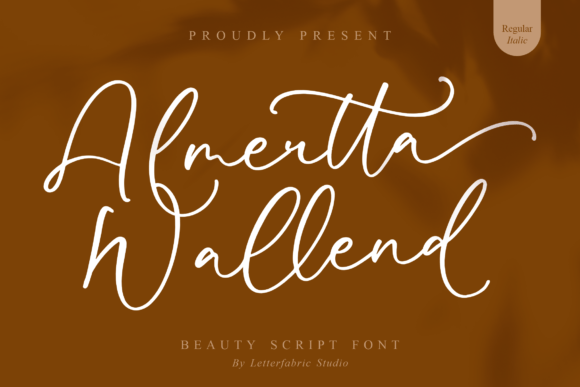
The Quest for the Perfect Font: Discovering Almertta Wallend
Ah, the eternal struggle of finding the perfect font for your design project! I recall working on a romantic getaway brochure for a client, determined to capture the essence of a whimsical, fairytale-like atmosphere. As I scrolled through font after font, nothing seemed quite right – until I stumbled upon Almertta Wallend. ✨ This beautiful, handwritten font instantly transported me to a world of elegance and charm, and I knew I had found my match.
An Honest Review of Almertta Wallend
- ✨ Romantic and delicate, with an unmistakable touch of sophistication
- 💫 Exudes a sense of kindness and warmth, perfect for designs that require a personal touch
- 🎨 Versatile and adaptable, suitable for a wide range of design applications
While Almertta Wallend is an exceptional font, there are a few minor considerations to keep in mind: 🤔
- ⚠️ May not be the best fit for very bold or attention-grabbing designs, as its delicate nature might get lost
- ⚠️ Some characters have slightly unconventional spacing, which may require manual adjustments for optimal results
One of the standout features of Almertta Wallend is its extensive range of OpenType features and glyphs. These features allow you to customize your text and add unique touches to your design. Some of the features you can explore include:
- Ligatures: Combine certain letter pairs to create a more fluid, connected look
- Stylistic Alternates: Swap out certain characters for alternative designs, adding visual interest to your text
- Glyphs: Access a wide range of additional characters, such as flourishes and ornaments, to enhance your design
The Story Behind Almertta Wallend
Almertta Wallend was crafted with love and care by a talented font designer, who drew inspiration from the world of classic romance and timeless elegance. The font’s delicate lines and gentle curves evoke a sense of kindness and warmth, making it perfect for designs that require a personal touch.
Q: What type of designs is Almertta Wallend best suited for?
A: Almertta Wallend is versatile and can be used for a wide range of designs, including wedding invitations, romantic getaways, fashion branding, and more.
Q: Is Almertta Wallend available in different font weights or styles?
A: Currently, Almertta Wallend is available in a single font weight, but its versatility and range of OpenType features make it suitable for a wide range of design applications.